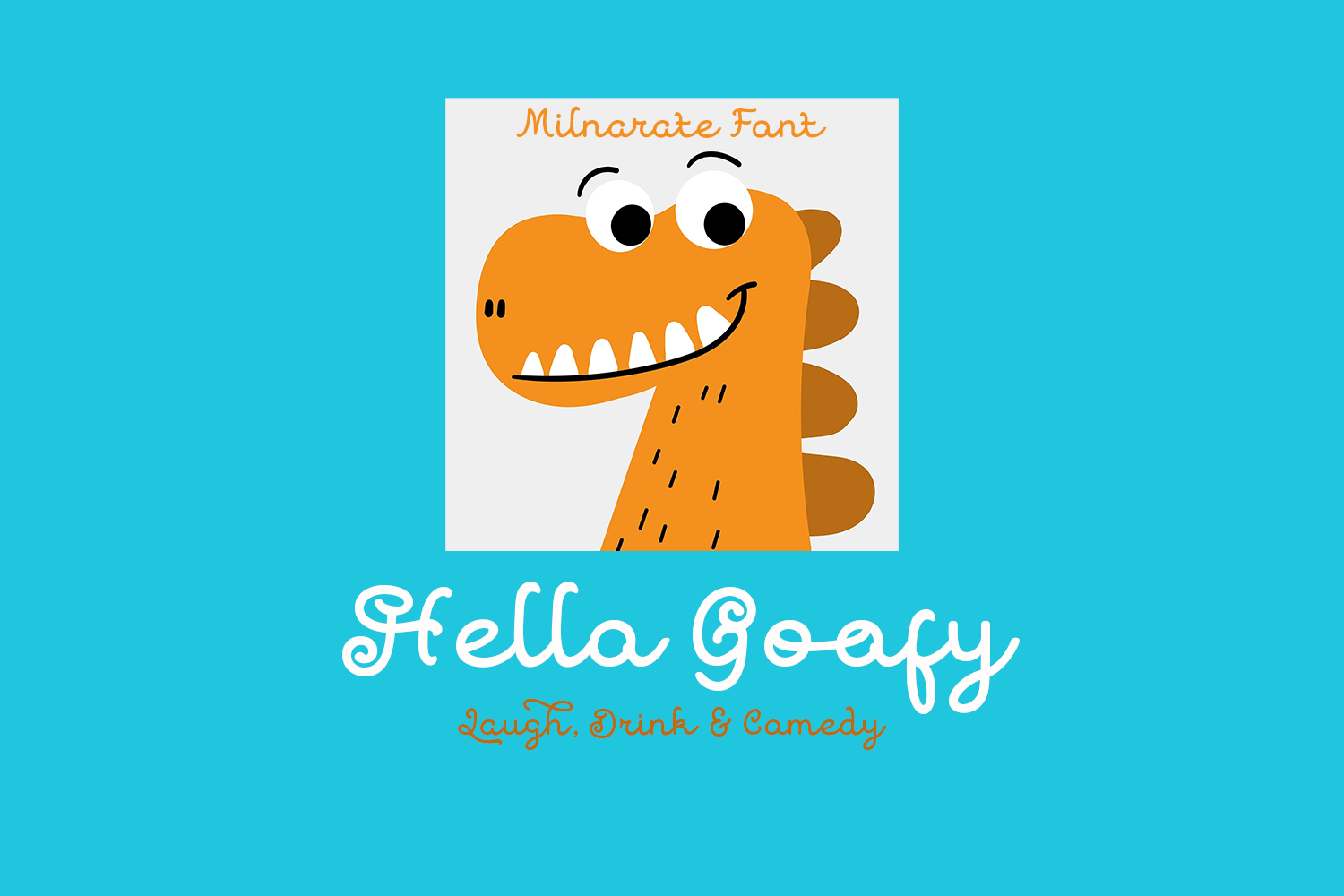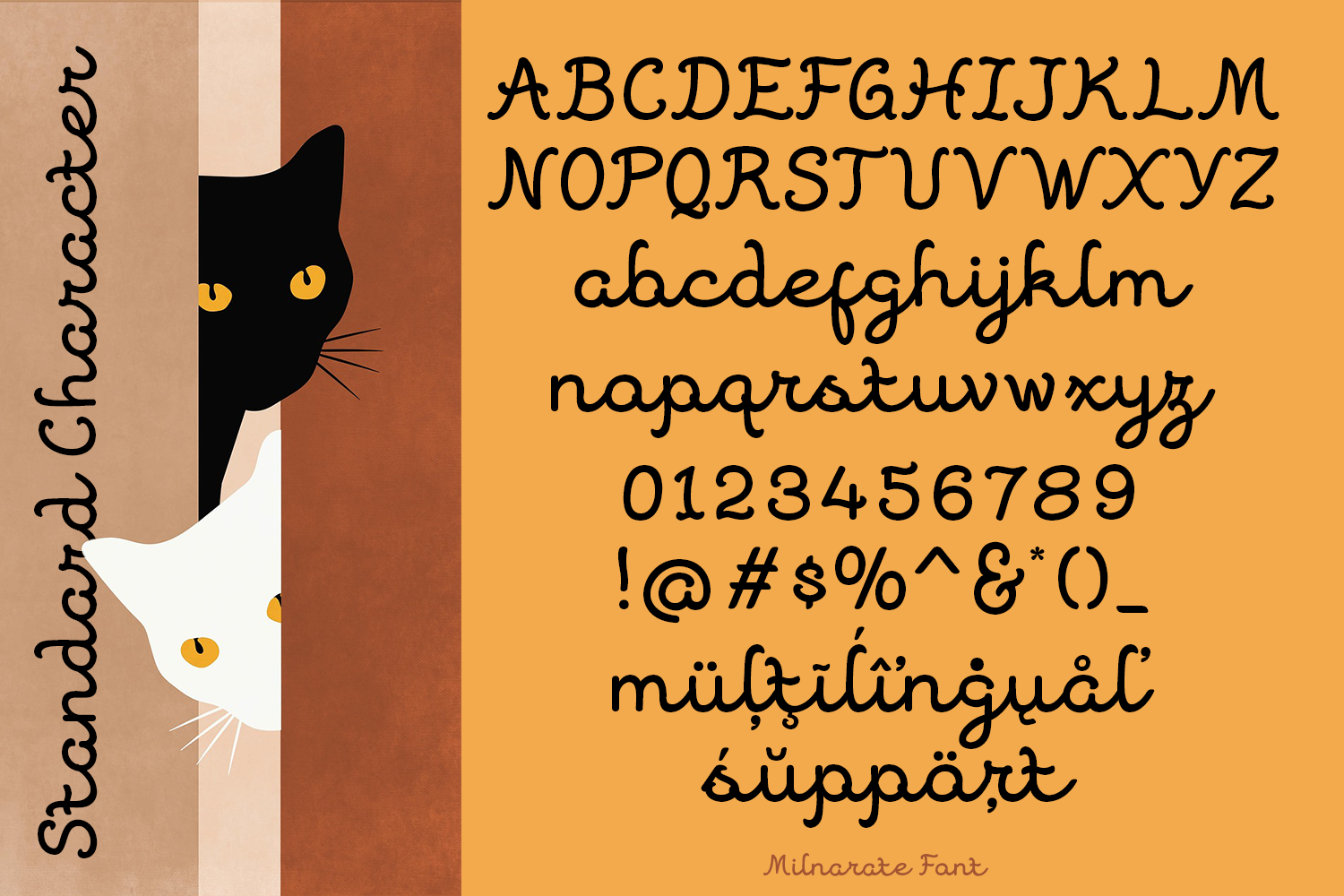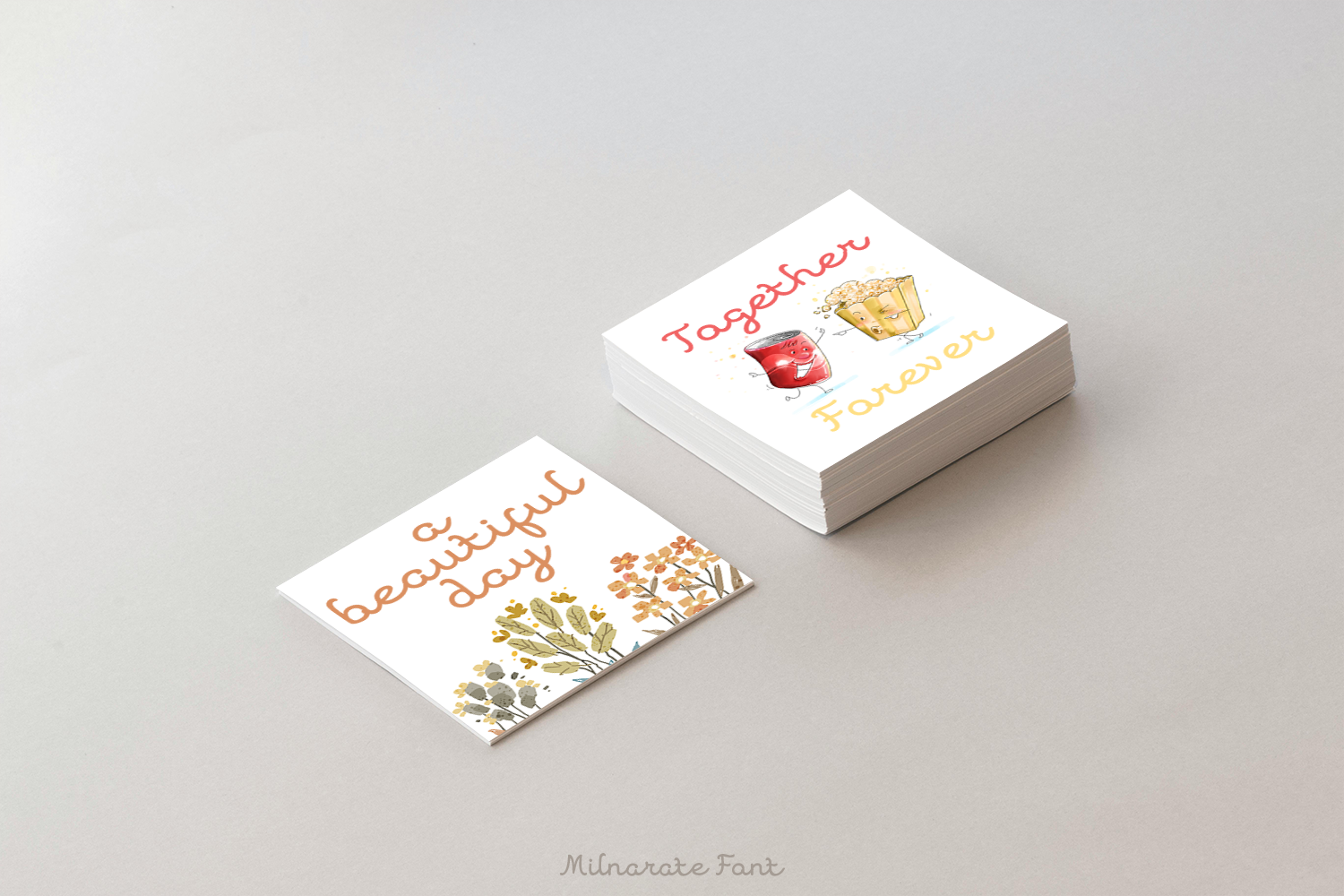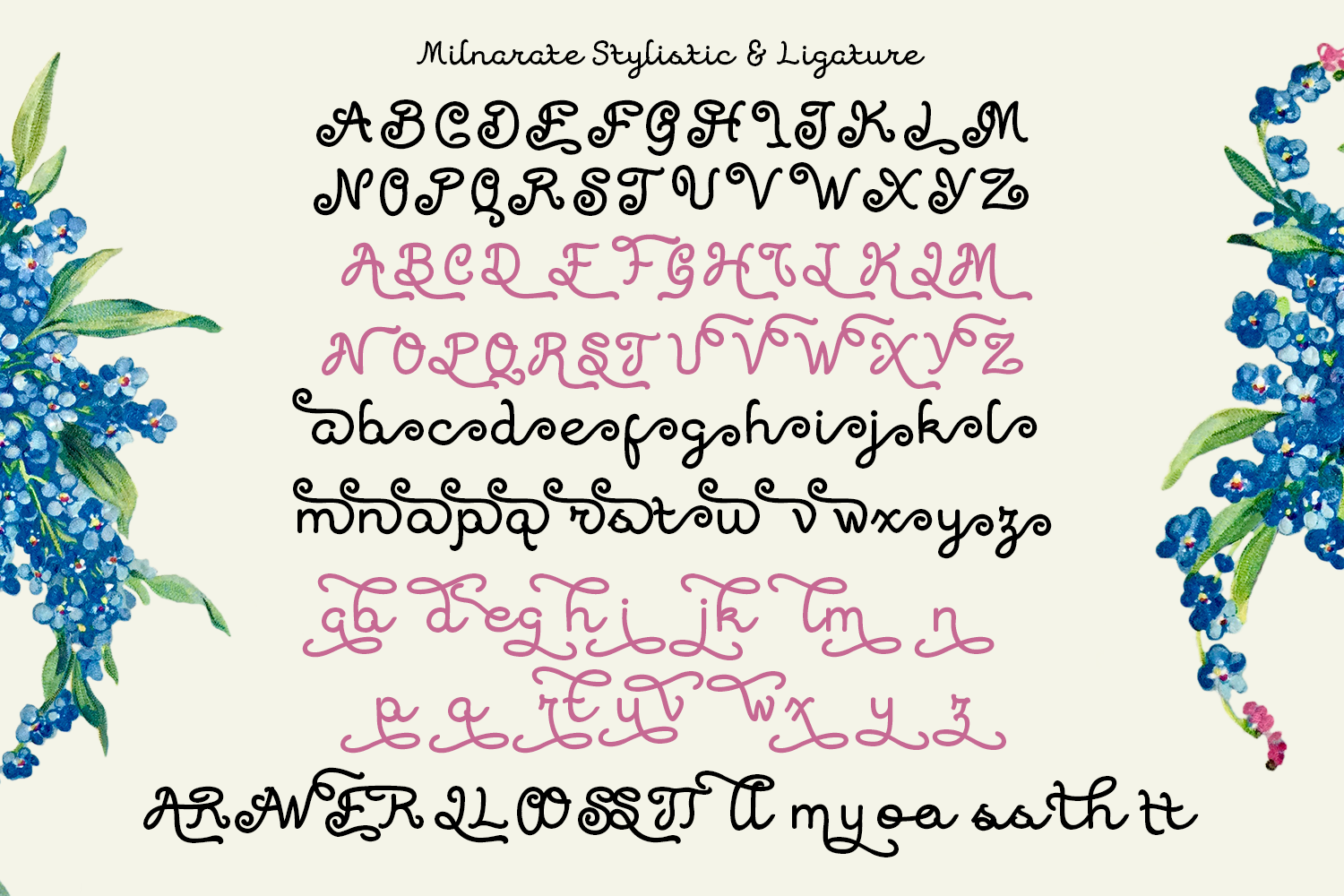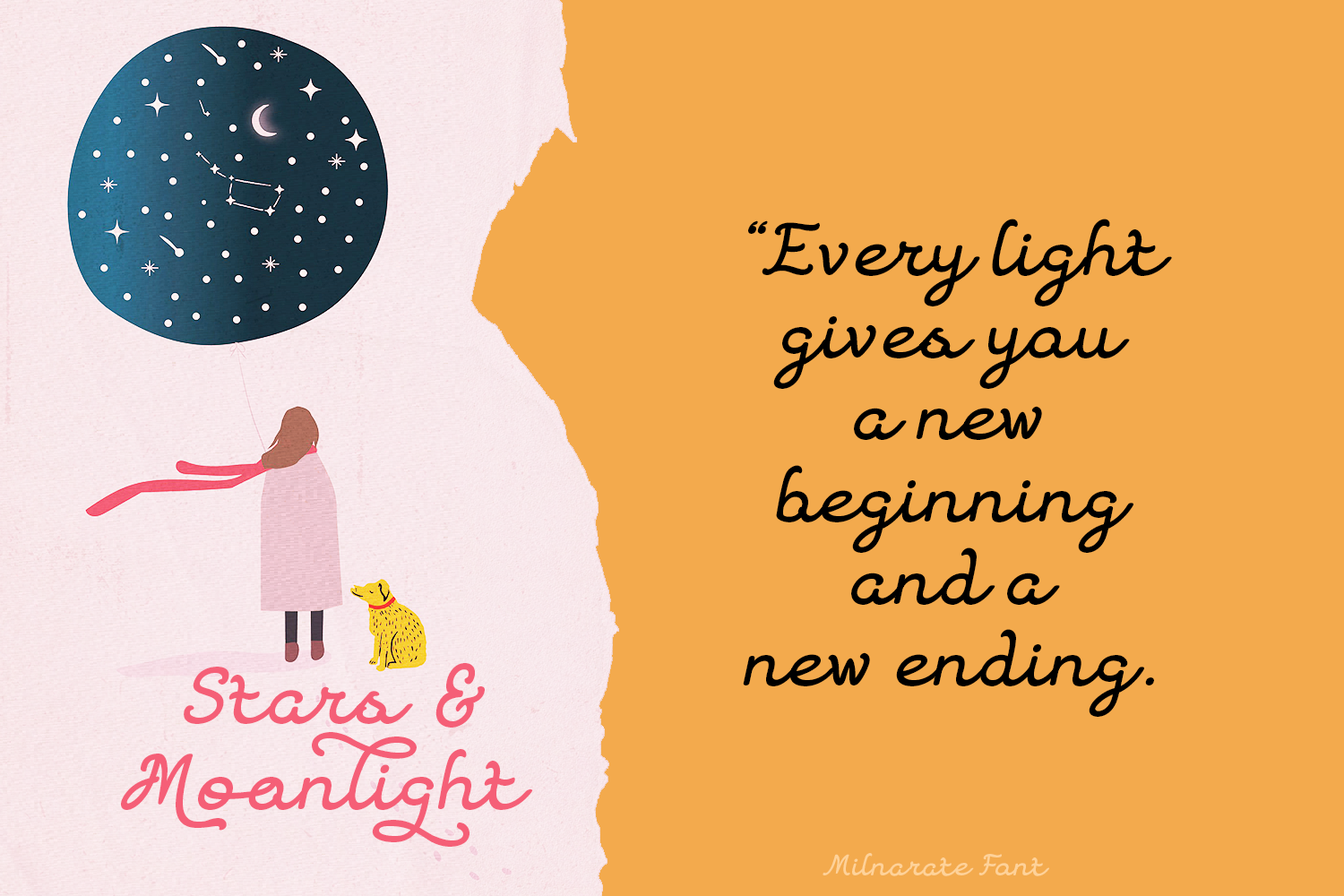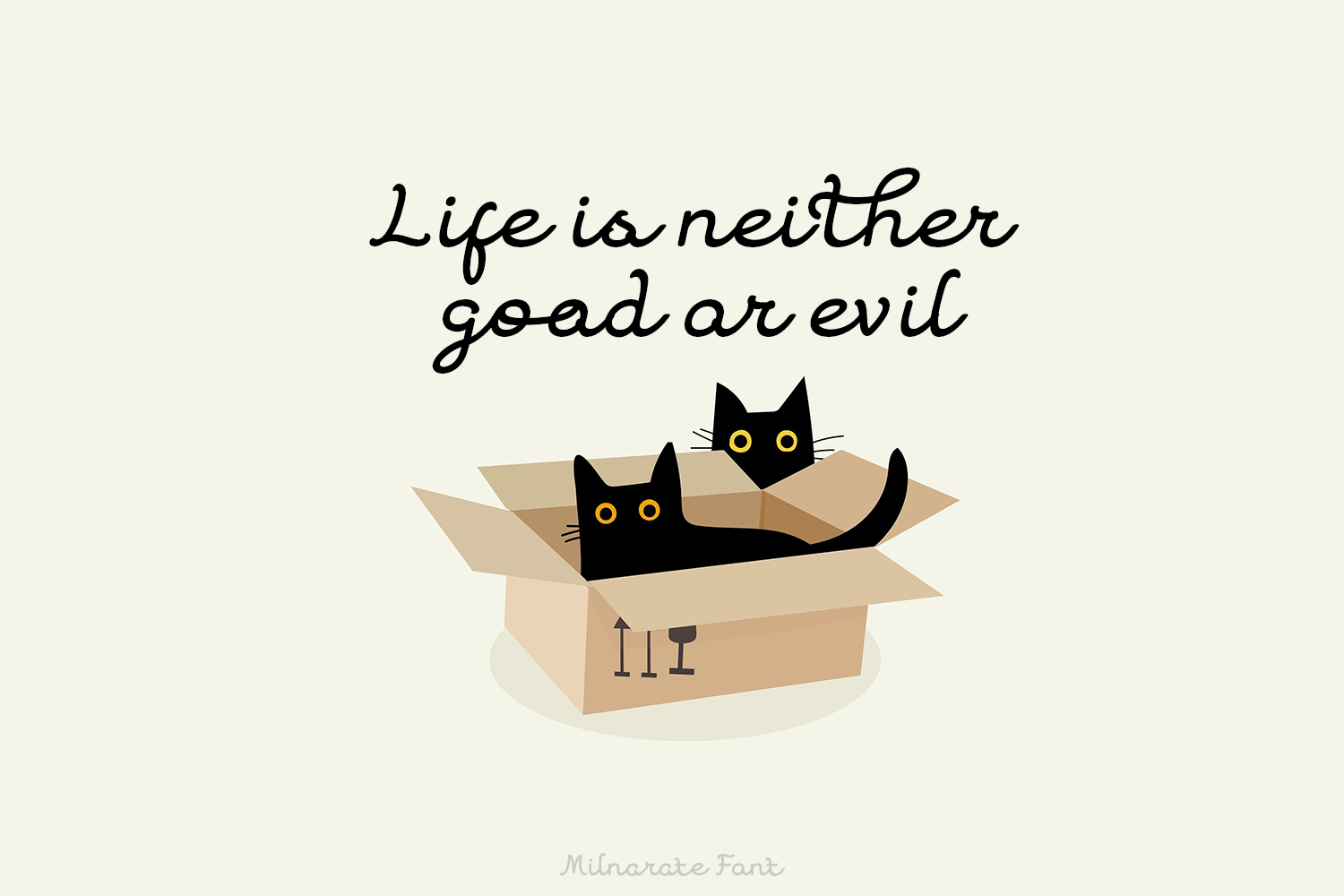
Milnarate is a monoline script font. Comes with curly style with much alternative and ligature. This font perfect for poster design, book covers, merchandise, fashion brands, advertising, magazines, album covers, wedding invitation and more.